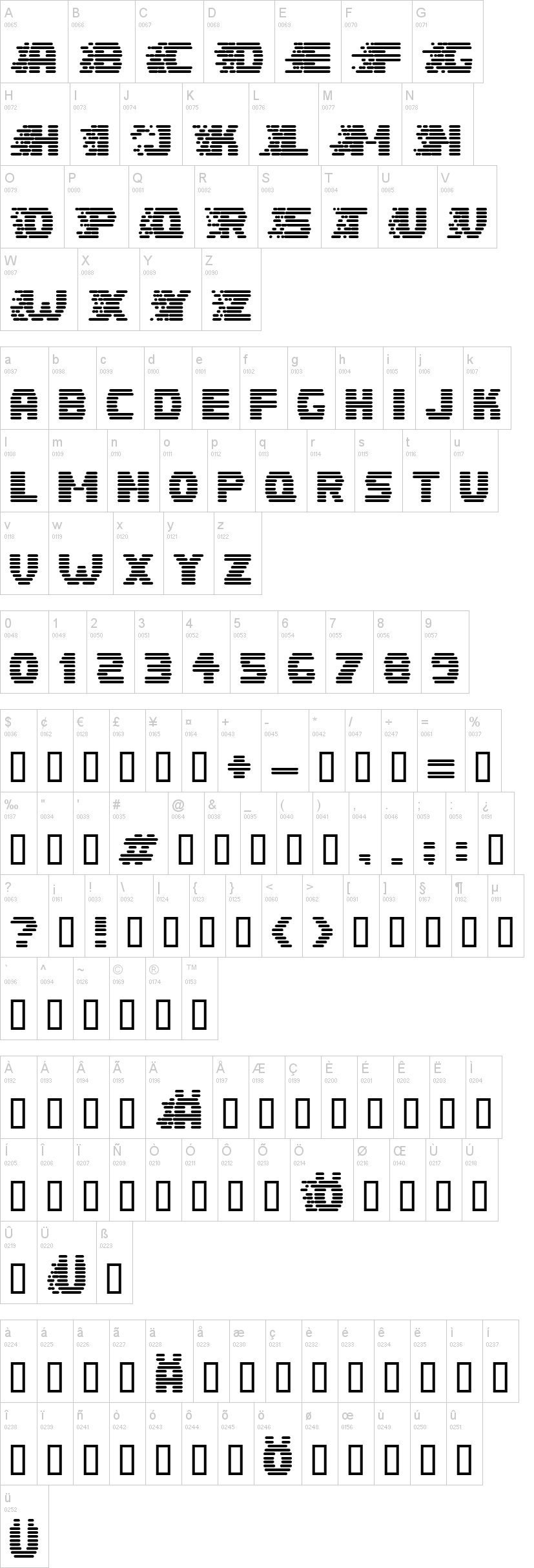
Шрифт Speedster
Speedster was inspired from the logo of the comic "New Flash". It contains all standard characters, numbers and signs within German Ää, Öö, Üü.
Rowan Rüster